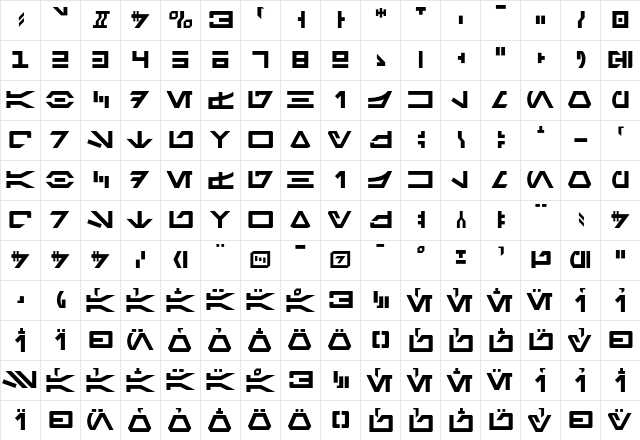
Aurebesh AF Legends
Design Context for Aurebesh AF Typeface
Aurebesh AF takes a measured approach to typography — its balanced proportions and neutral character make it a reliable workhorse for both digital and print work.
Pro Tip: Use Aurebesh AF in both headline and body roles to test its range before committing to a single application.